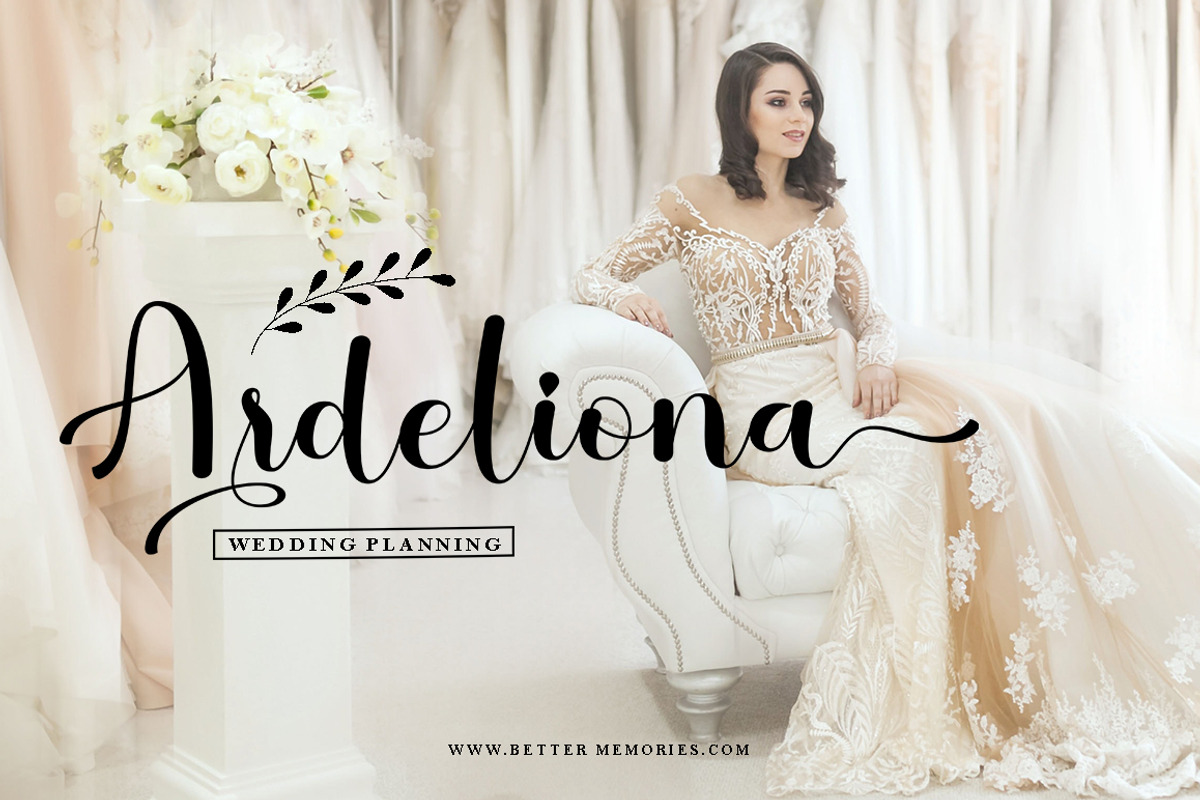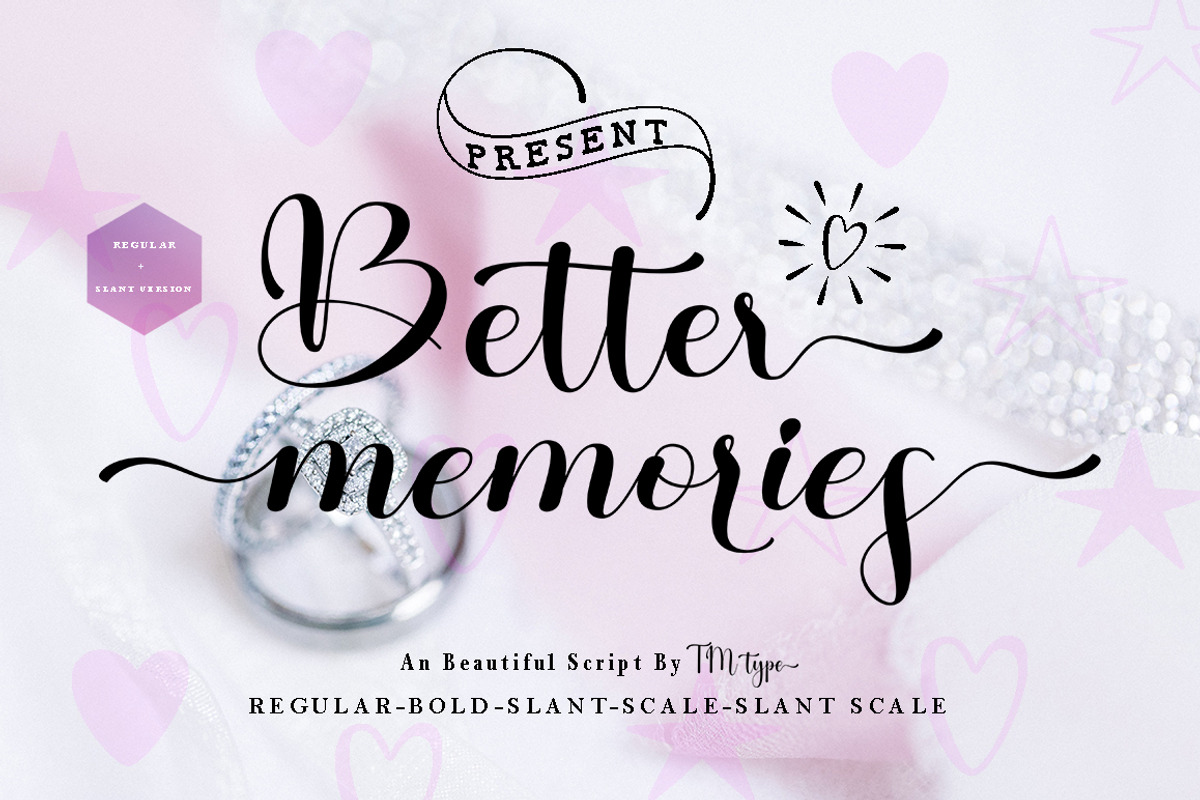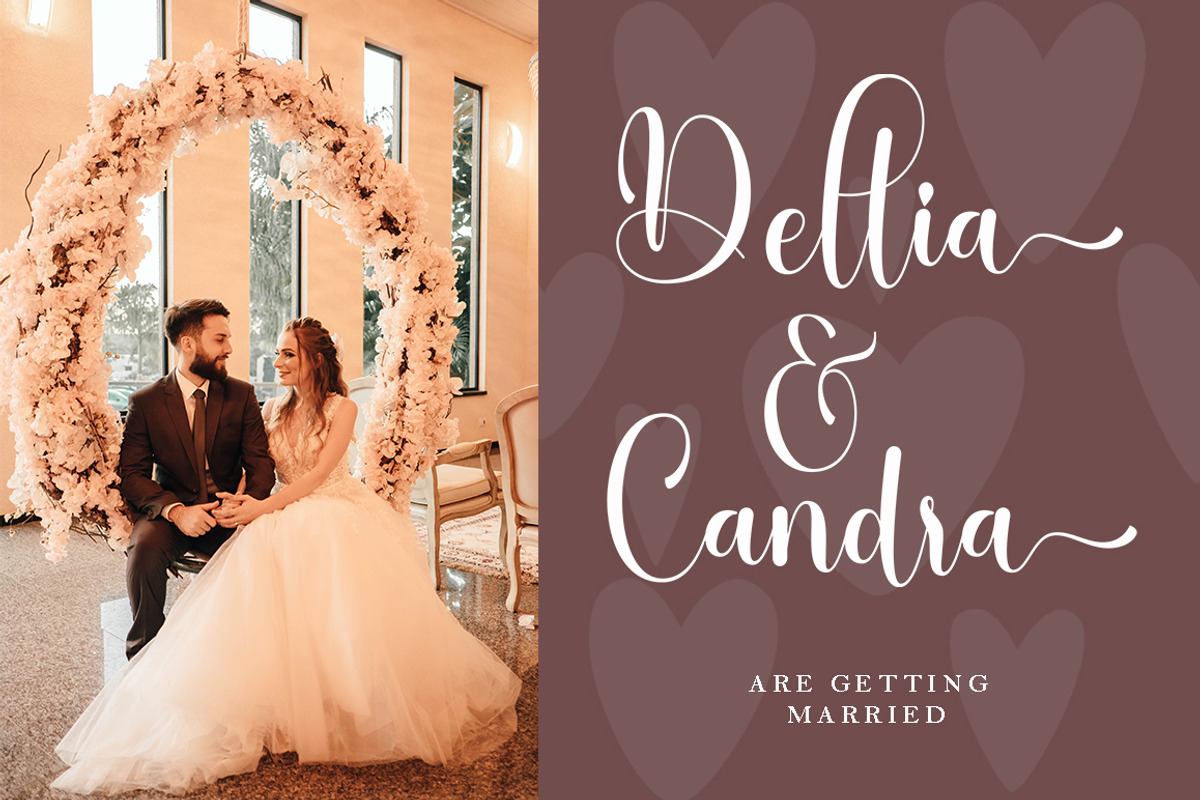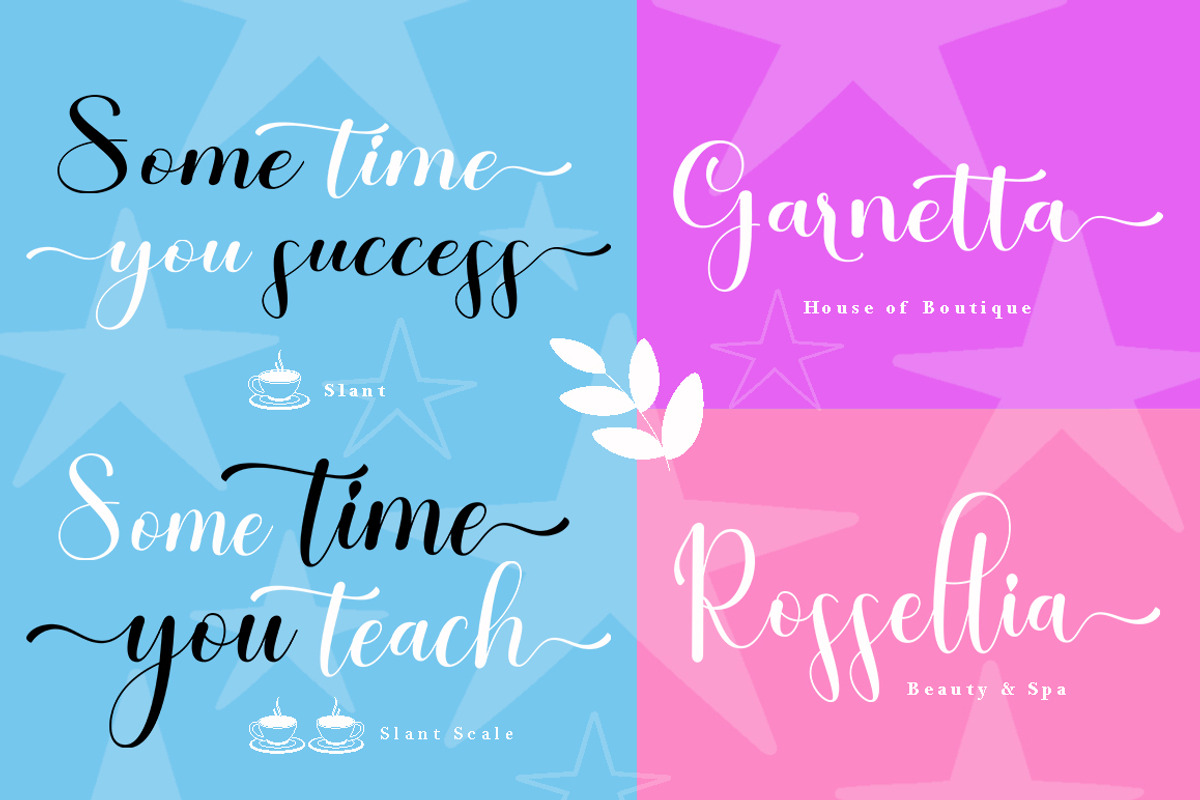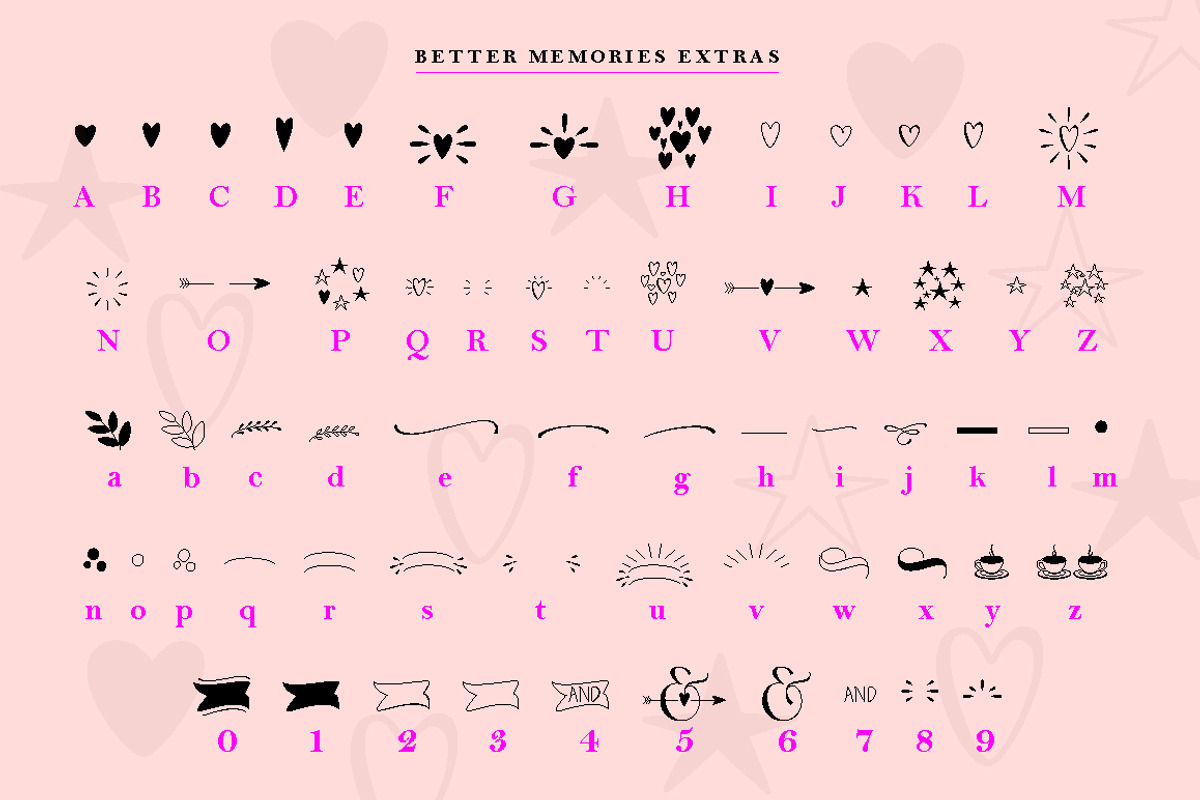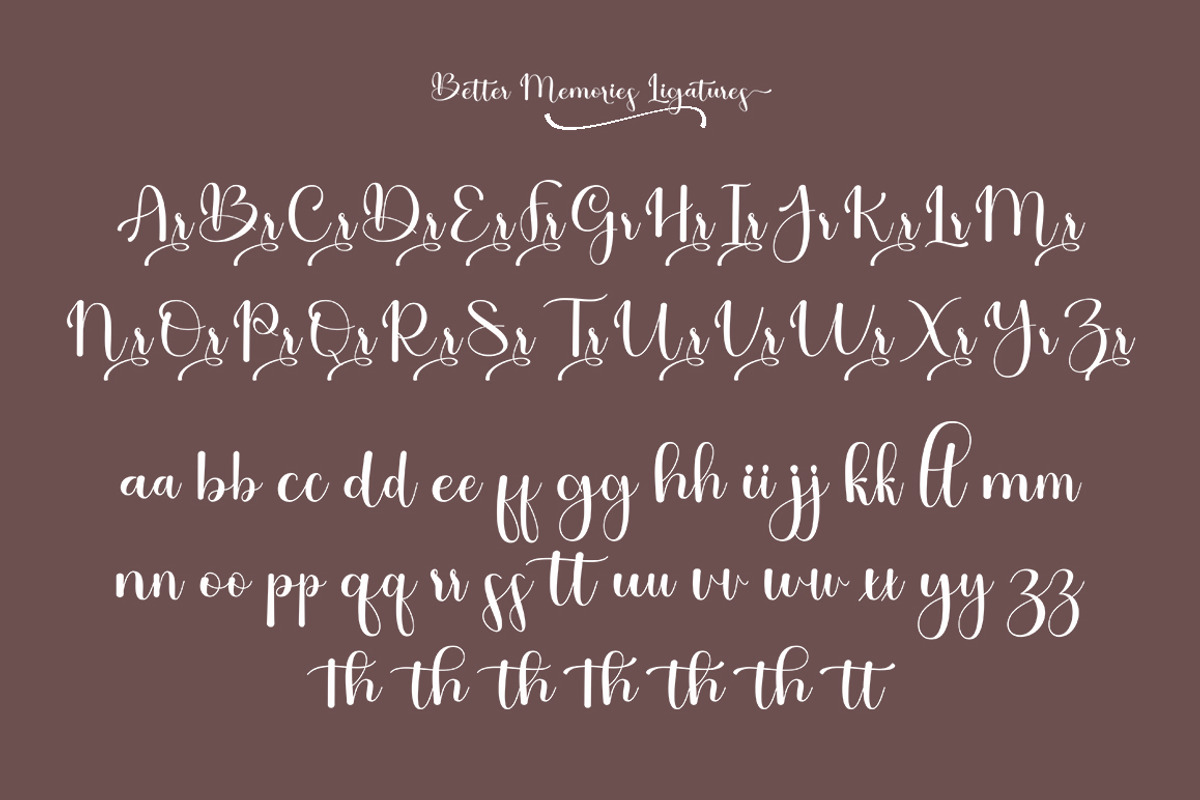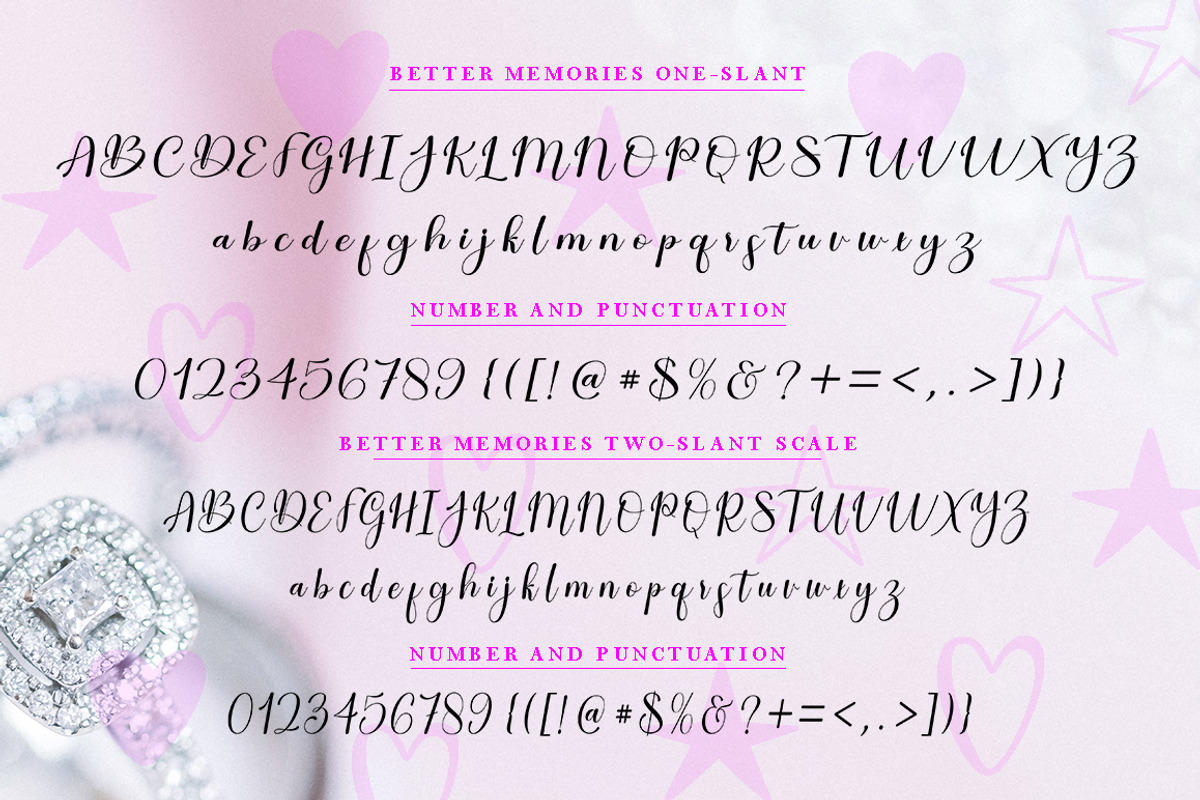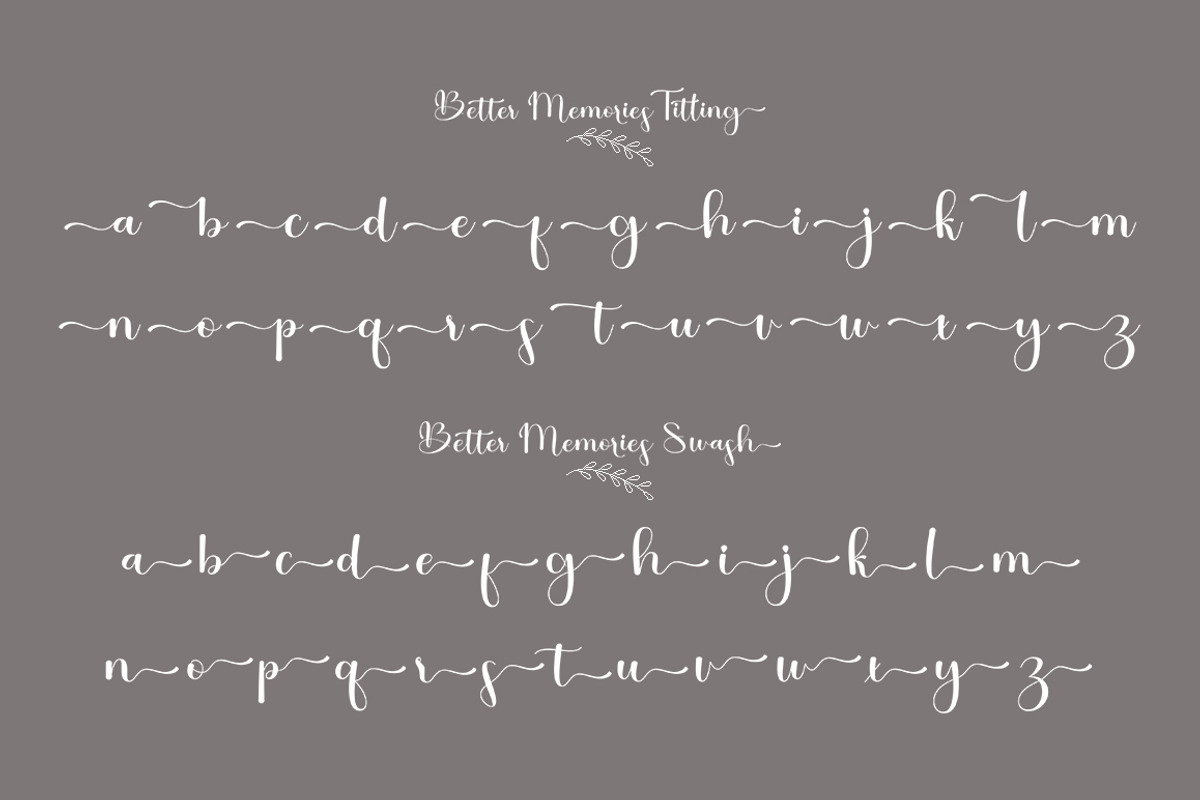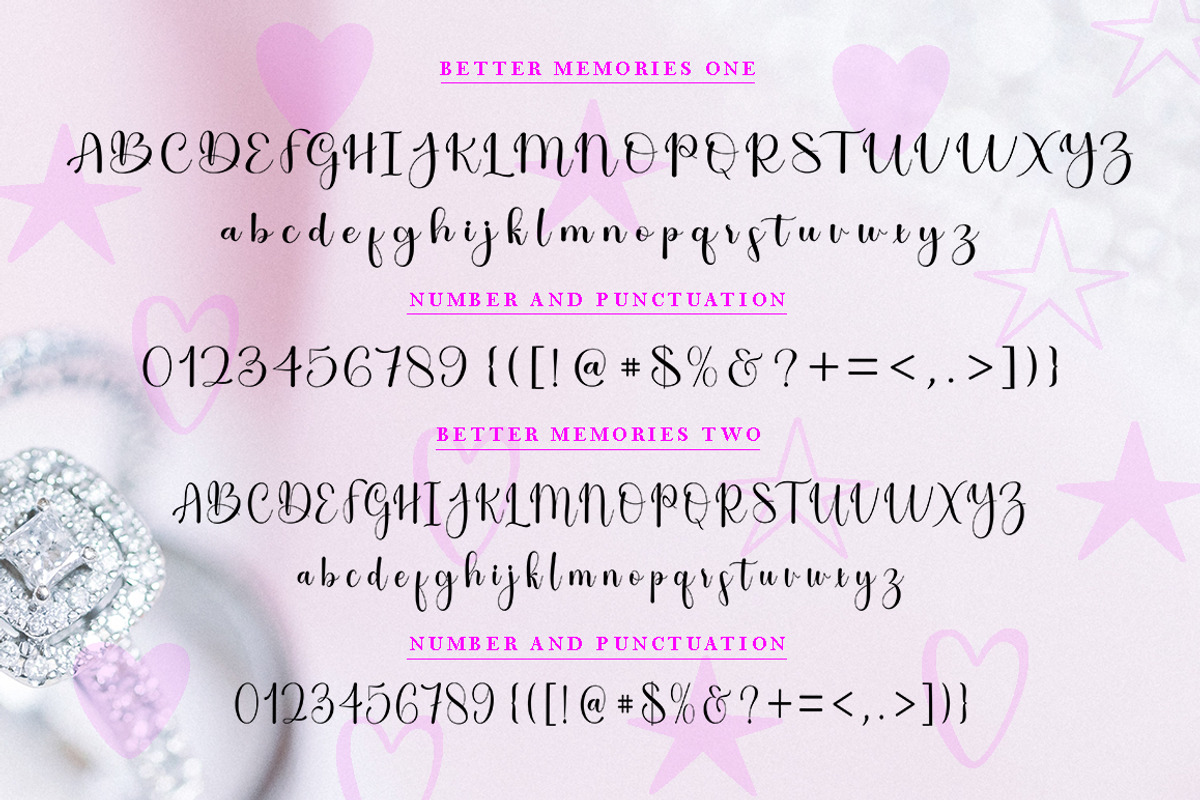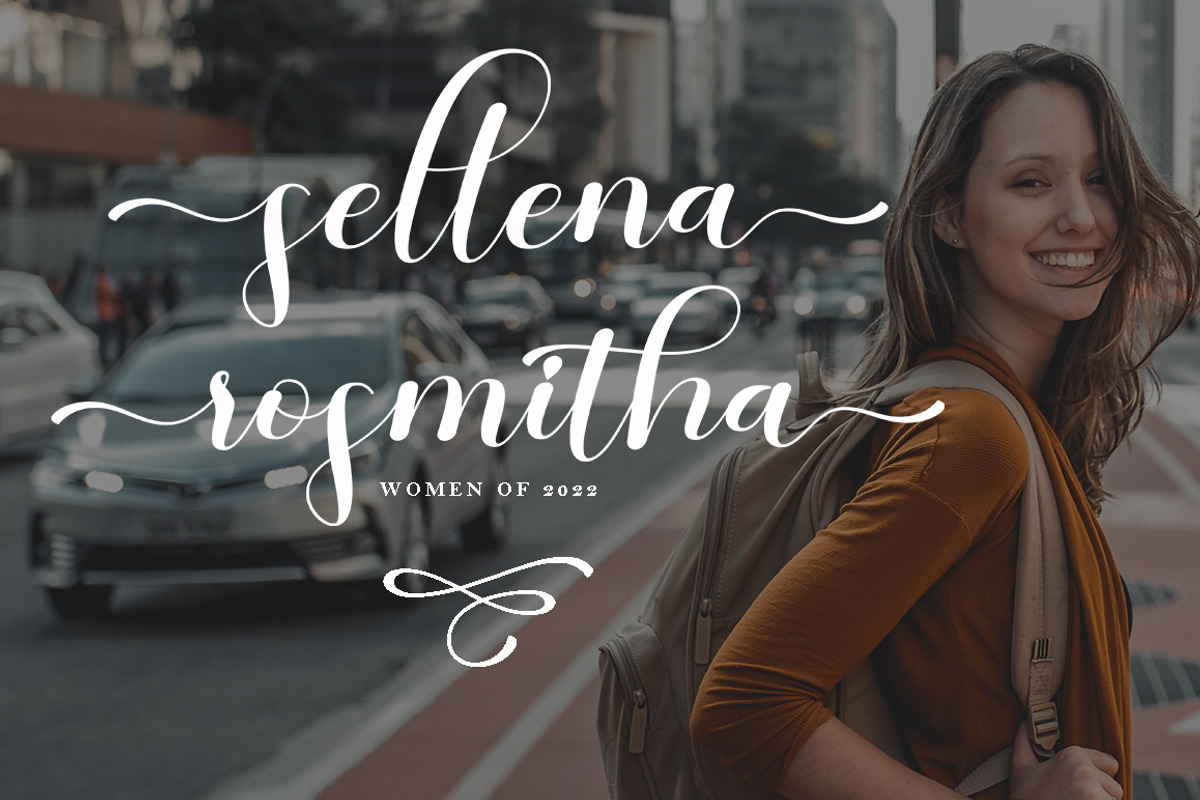
Better Memories
Better Memories is a beautiful script made by deep love. Better memories with a natural handwriting touch are suitable for those of you who need fonts for Headlines, Clothing, Invitations, Branding, Weddings, Logo Design, Lettering, Logotype, Clothing, Posters, Magazines and other design projects. What's Included: Better memories Regular - OTF TTF Better memories Slant / Scale / Slant Scale - OTF TTF FREE VECTOR EXTRAS Better memories - OTF TTF